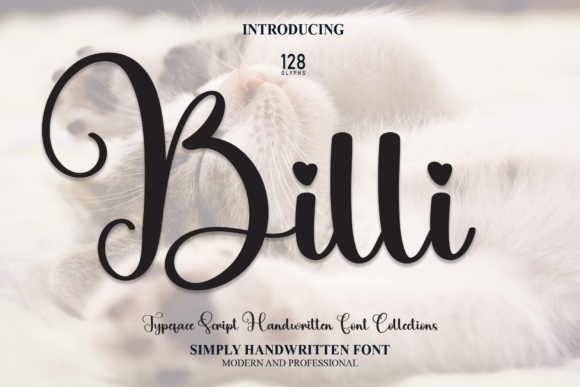
Love at First Sight: The Allure of Billi Font
As a designer, you know that feeling when you stumble upon the perfect font to capture the essence of your project. It’s like finding that special someone who makes your heart skip a beat. For me, that moment came when I discovered the enchanting Billi Font. Its beautiful script design, complete with hearts for dots and swashes, is sure to radiate the romantic feeling of your design.
Billi Font is more than just a pretty face; it’s a versatile tool that can be used for a wide range of applications, from wedding design and logos to invitations and social media posts. Its unique charm makes it a valuable addition to any designer’s toolkit, allowing you to add a touch of whimsy and personality to your work.
Billi Font Key Features
- Unique Characteristics: Billi Font features a unique blend of modern and traditional design elements, with a focus on elegant lines, subtle curves, and a touch of sophistication.
Billi Font Review
Overall, I think the Billi font is a decent addition to any design project. Here are some of its strengths and weaknesses:
- ✨ The Billi font has a unique, modern aesthetic that can add a touch of sophistication to any design. It’s perfect for titles and headings where you want to make a statement.
- ✨ The font is highly customizable, with a wide range of styles and weights to choose from. This makes it easy to adapt to different design requirements.
- ✨ The Billi font is highly legible, even at small font sizes, making it suitable for digital designs where space is limited.
- ⚠️ One of the biggest drawbacks of the Billi font is its limited support for non-Latin languages. If you need to design for a global audience, you may want to consider a more inclusive font option.
- ⚠️ The font can be a bit too bold and overwhelming at times, so use it sparingly to avoid visual clutter.
- ⚠️ Some users have reported issues with font rendering on certain devices, so be sure to test your design thoroughly before finalizing.
Overall, I’d give the Billi font 3.5 out of 5 stars. While it has its strengths, it’s not without its limitations. With careful use and attention to design requirements, the Billi font can be a valuable addition to your toolkit.
Billi Font is perfect for:
- Modern and stylish designs
- Professional-looking presentations and documents
- Social media graphics and online content
Alternatives to Billi Font for Designers
Lato Font is a popular sans-serif typeface that is highly legible and versatile. It is ideal for use in digital interfaces, publications, and branding materials. Lato Font is more modern and sleek compared to Billi Font, making it a great choice for contemporary designs.
Comparison to Billi Font: Lato Font is more geometric and modern, whereas Billi Font has a more organic feel. Lato Font is also more suitable for digital applications, while Billi Font is often used in print materials.